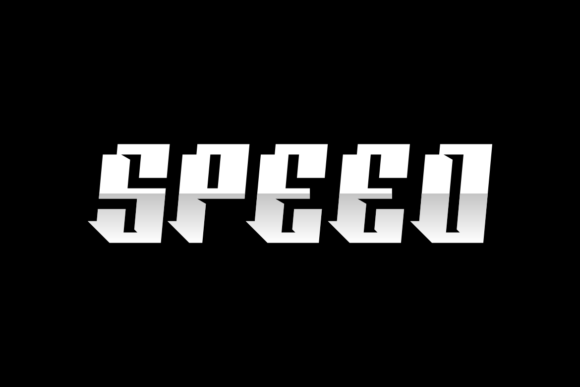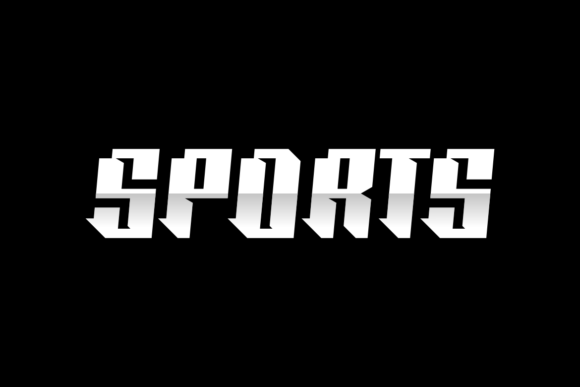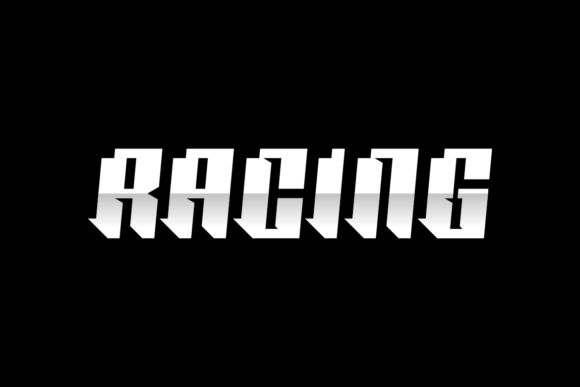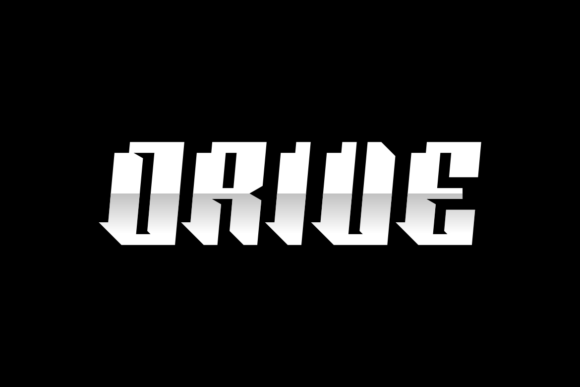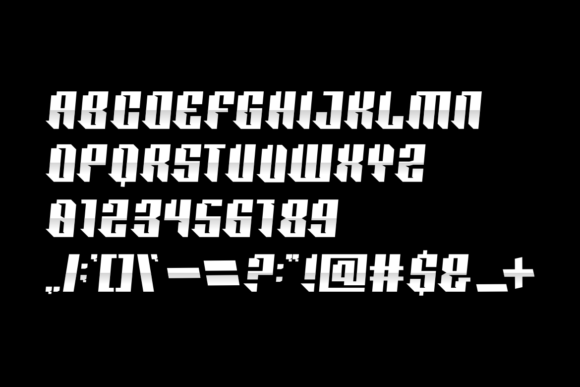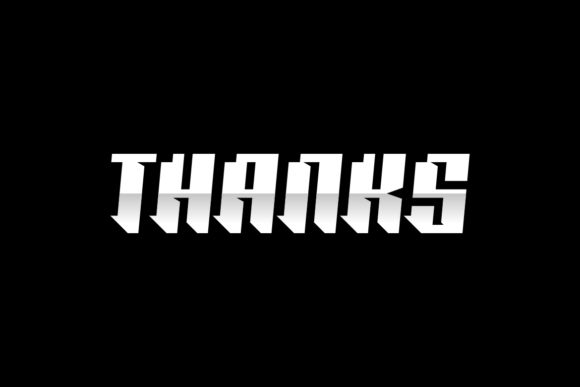
Introduction to Festad Font Font
Fonts play a crucial role in design, and the Festad Font font is a typeface that brings both character and versatility to any project. Whether you’re working on a branding project, a website, or a print design, the Festad Font font offers a unique style that can elevate your work.
Festad is a bold slab serif font that feels beautiful, sporty, and modern.
This font is perfectly suited for a wide variety of projects, such as signature, stationery, logo, wedding, typography quotes, magazine or book covers, website headers, clothing, branding, packaging design, and more .
Key Features of Festad Font Font
Why Choose Festad Font Font?
The Festad Font font is more than just a typeface – it’s a design tool that helps you communicate your message with style and clarity. Its unique character set and versatile design make it suitable for a wide range of applications, from elegant invitations to bold headlines.
With its carefully crafted letterforms and balanced proportions, the Festad Font font ensures readability and visual appeal across all mediums.
What makes Festad Font font special?
The Festad Font font stands out with its unique design, exceptional readability, and versatility across various design applications.